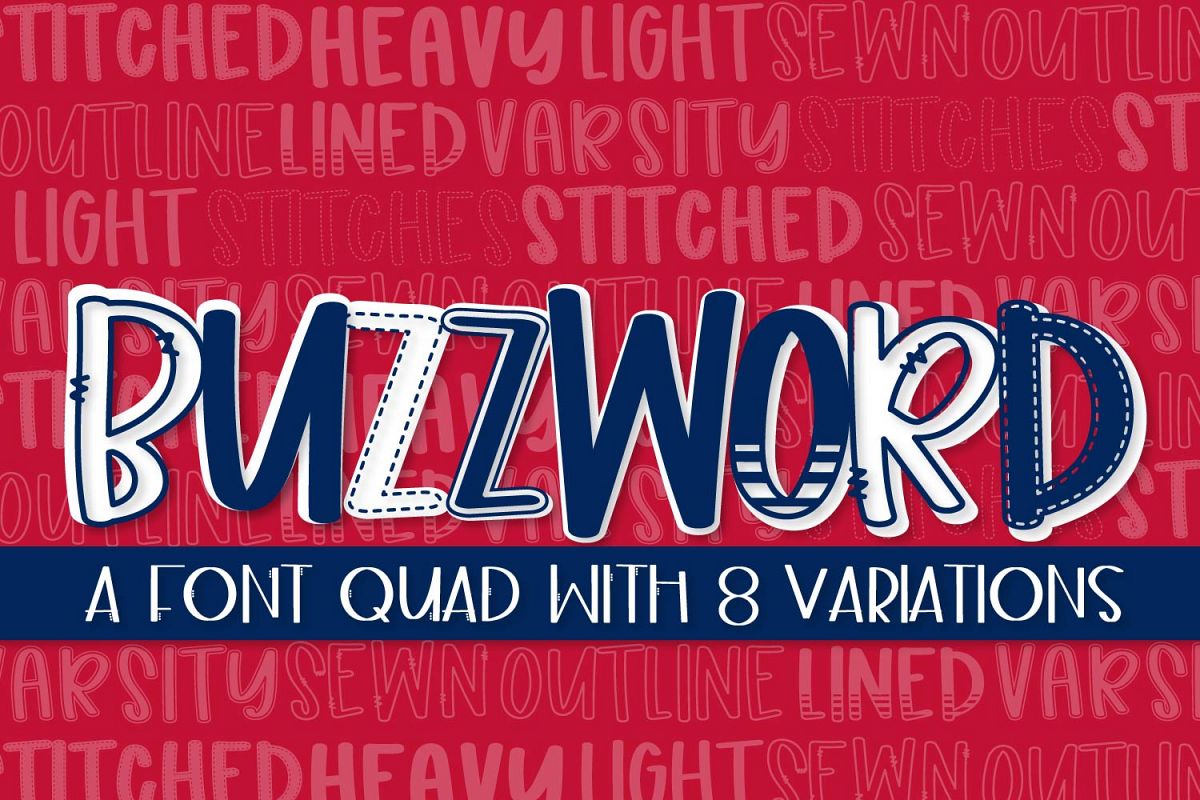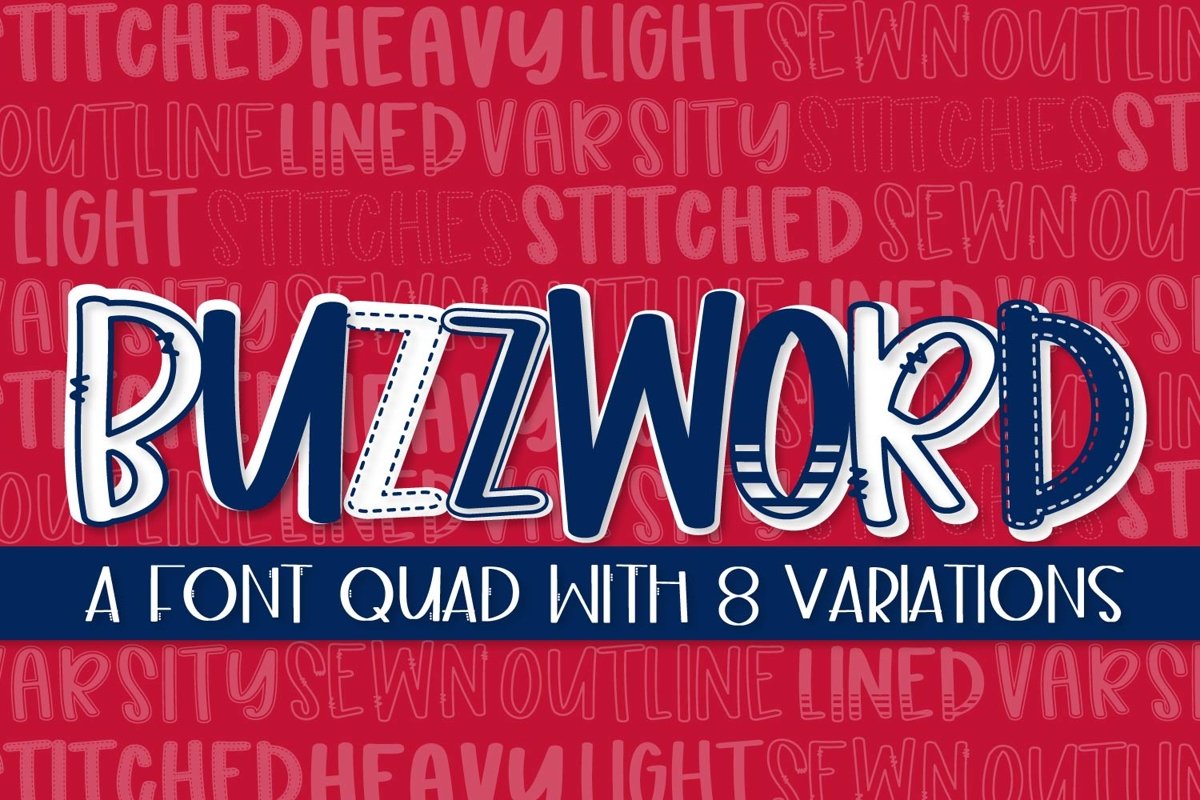
Buzzword - A Font Quad With 8 Variations
Each font does include # & symbols, however, those are not styled.
4 fonts are available -
CLN-BuzzwordFV - Contains Varsity & Fade on Upper/Lower case letters
CLN-BuzzwordSS - Contains both stitched & stitched on Upper/Lower case letters
CLN-BuzzwordOS- Contains outline & sewn on Upper/Lower case letters
CLN-BuzzwordHL- Contains heavy & light on upper/lower case letters.
Additionally, while these do create a layered look, you will need to utilize some type of design program to layer them as shown.